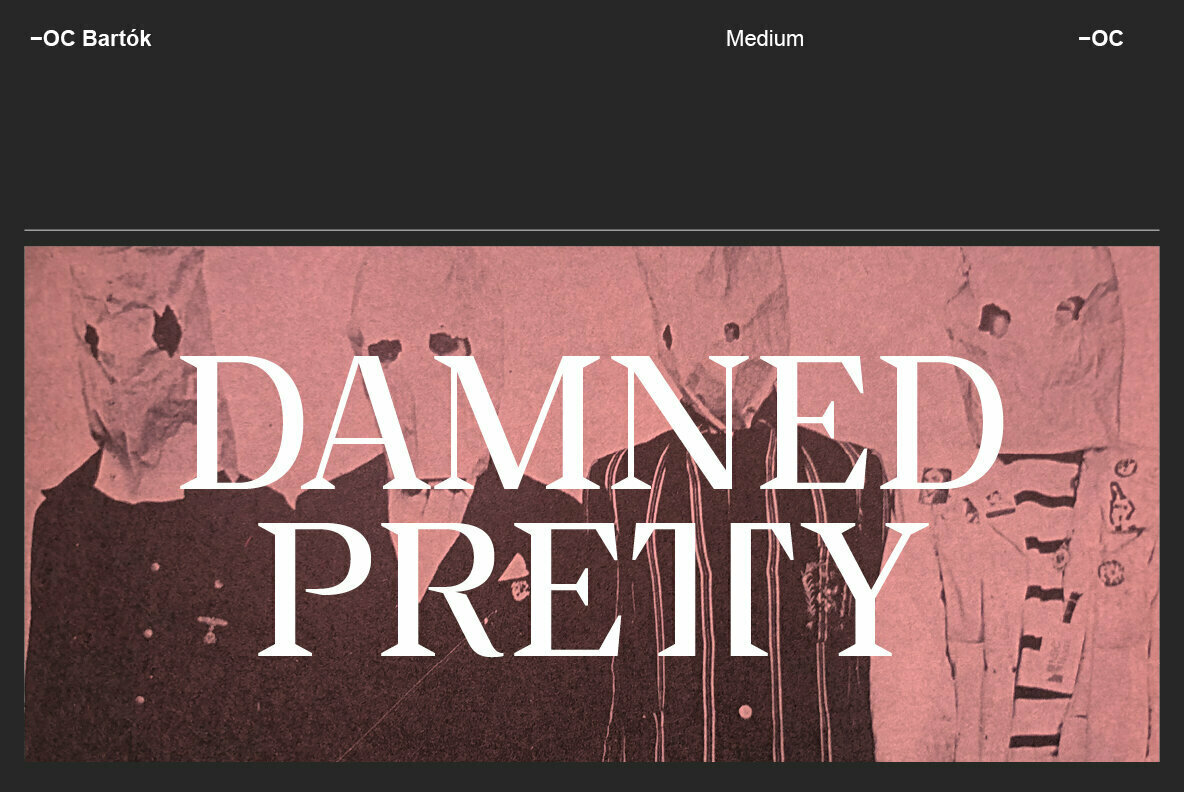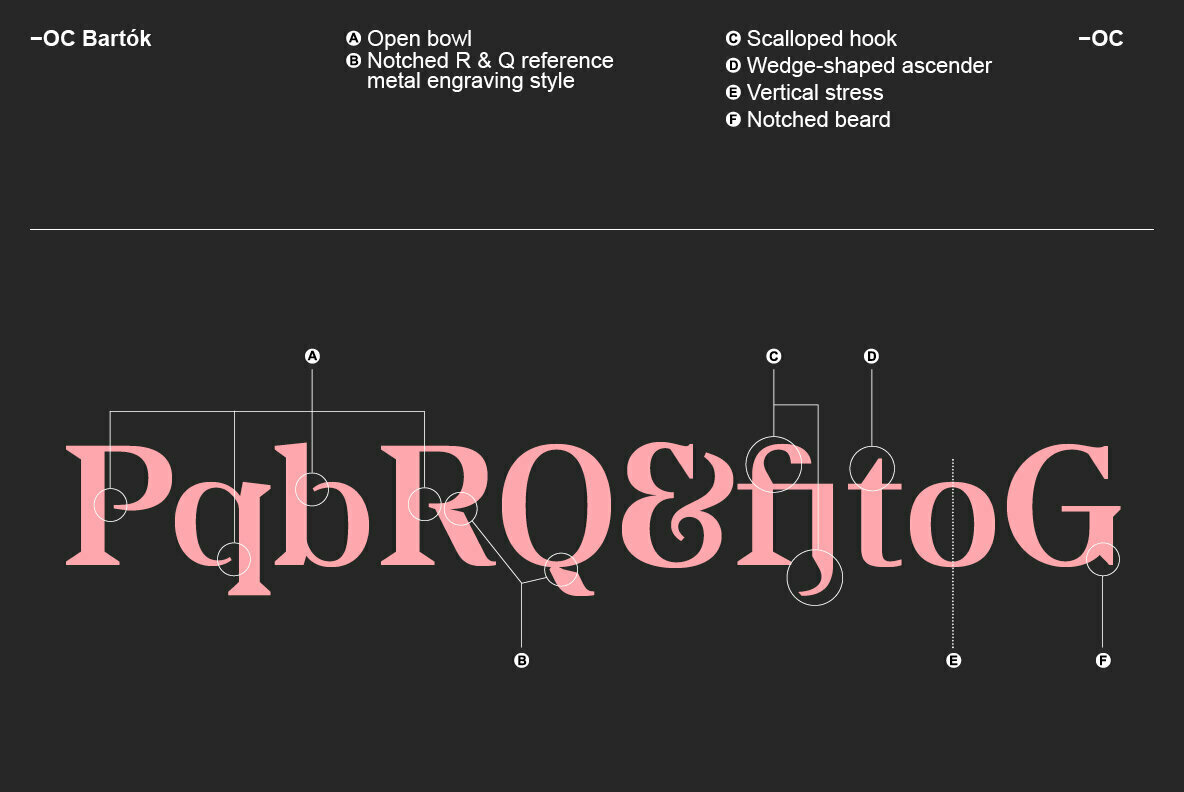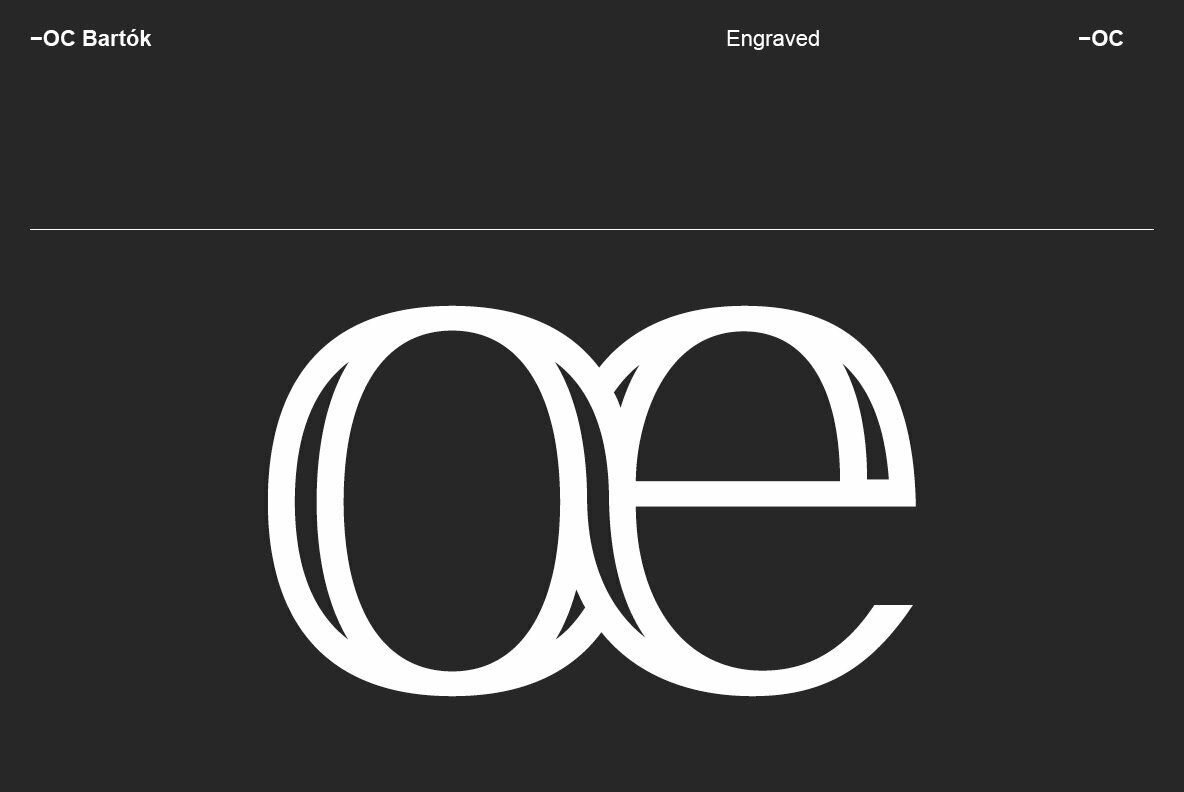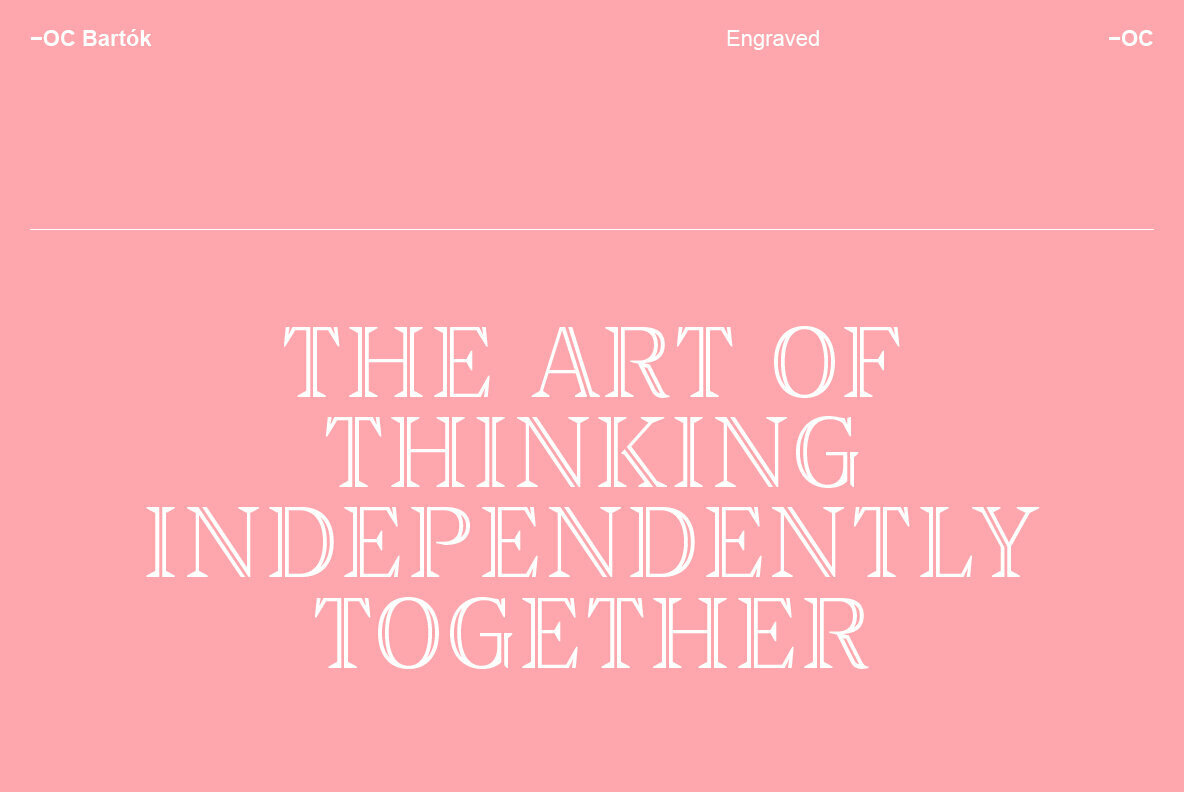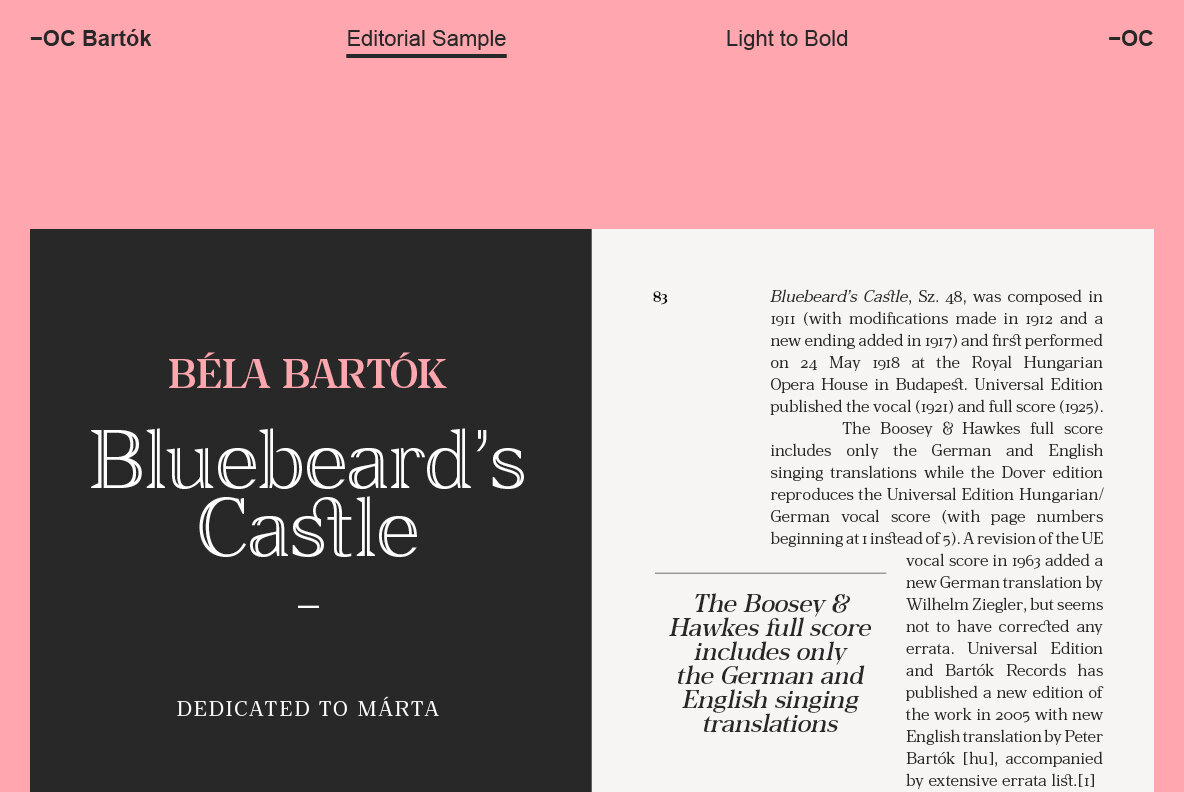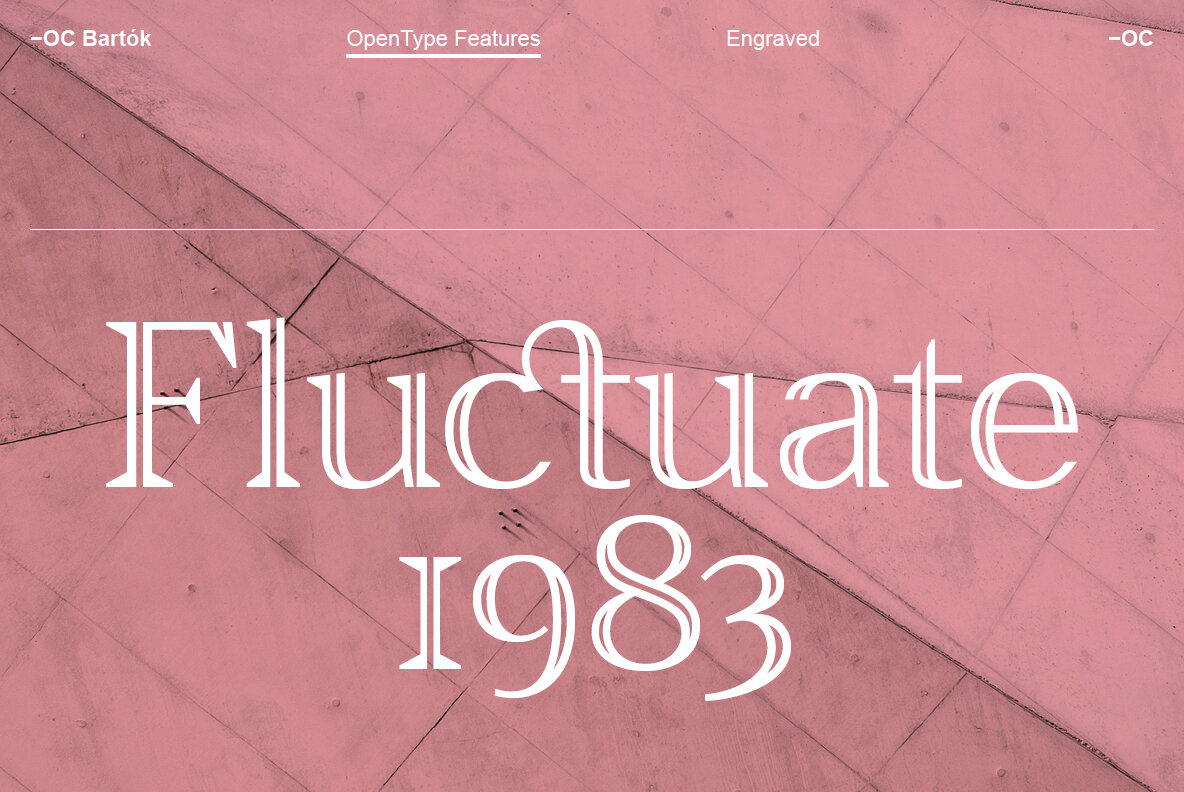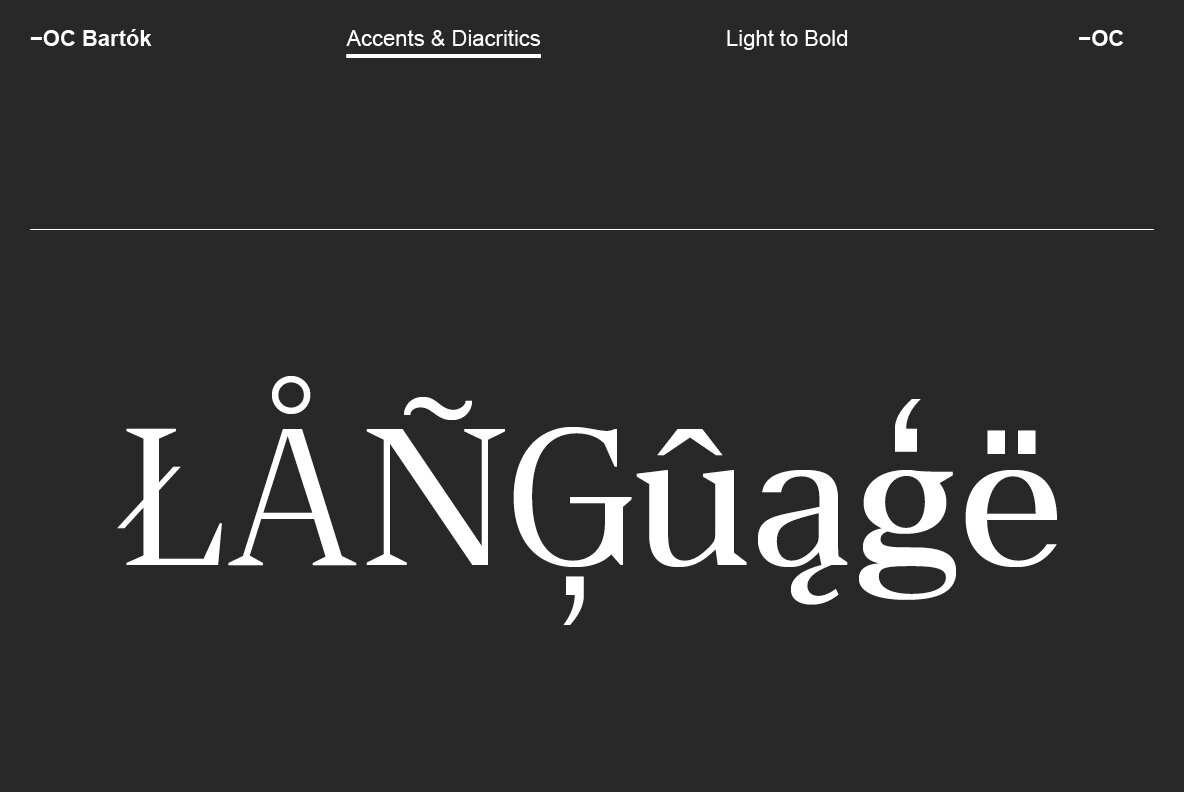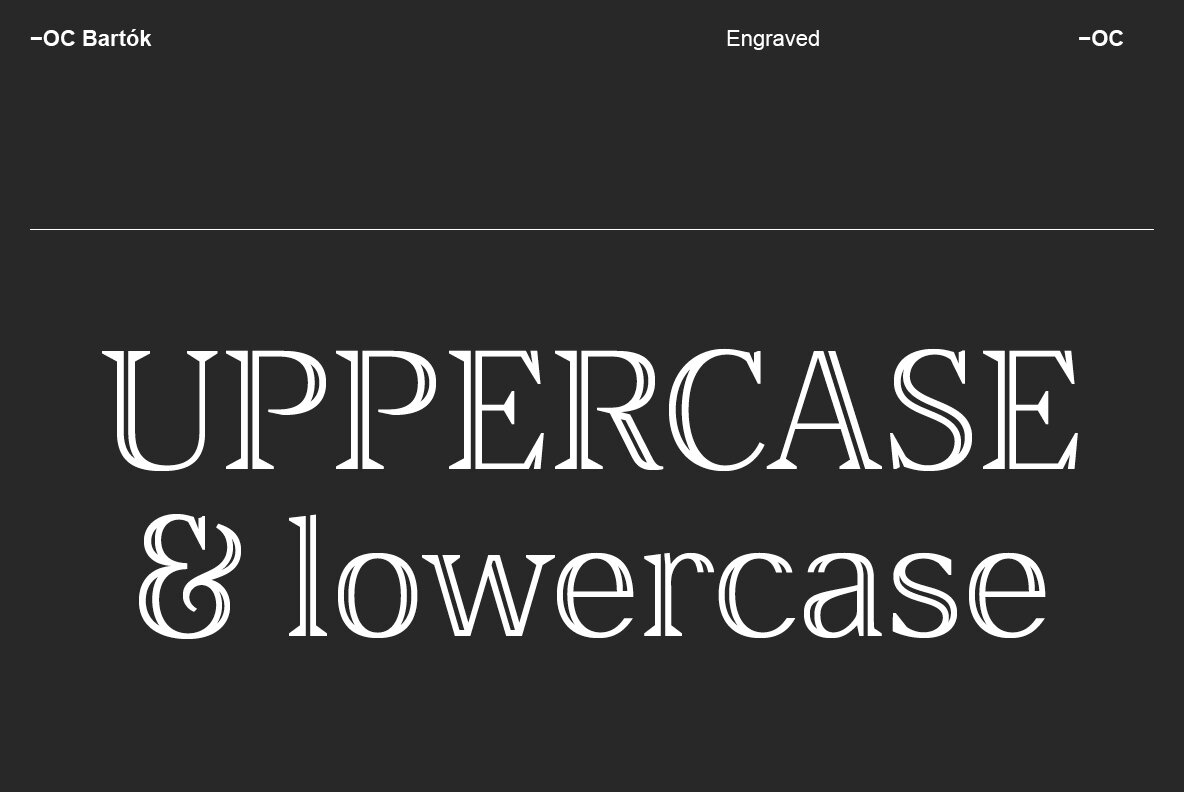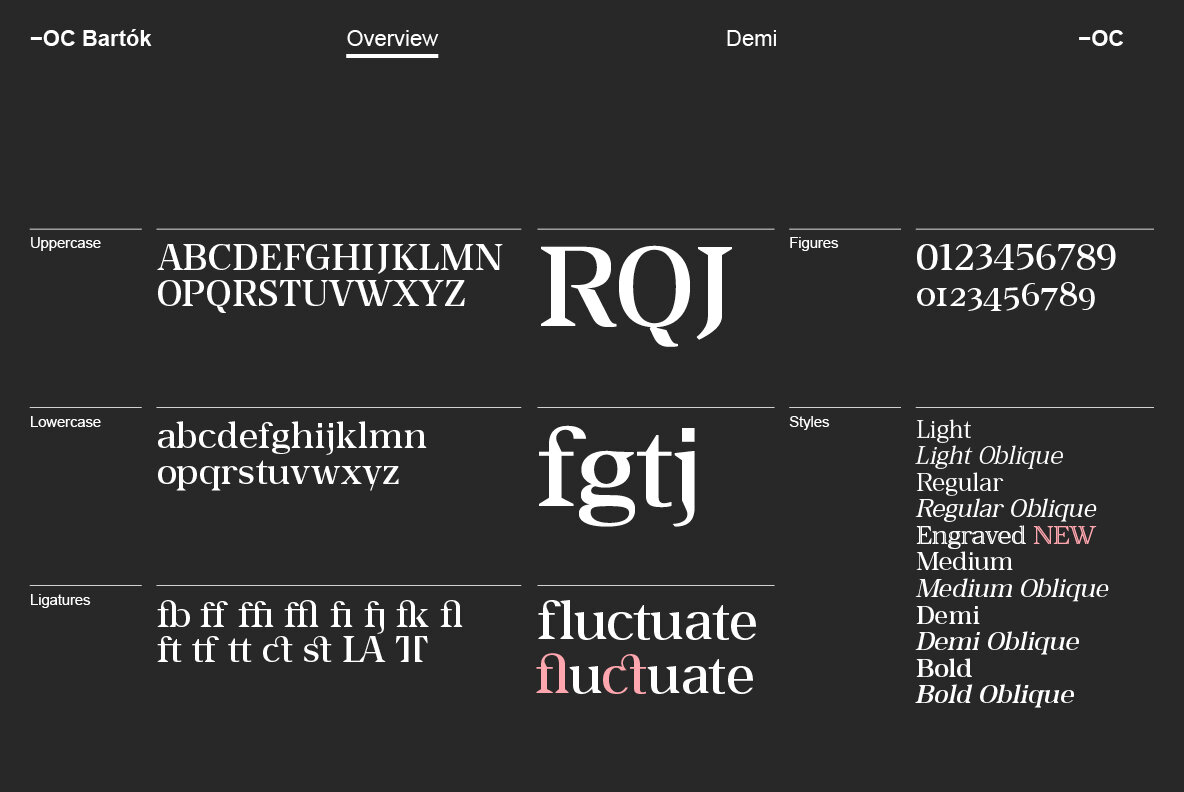
-OC Bartok Font
-OC Bartók is a beautifully crafted wedge serif available in ten styles.
The maverick brother of -OC Rey, it adds a brutal confidence to the former’s classical elegance, and carries a sense of passion and drama which increases with weight; starting subtly in Light and finishing with a magnificent crescendo in Bold.
Drawn from a mix of inspiration -OC Bartók is based on the readable skeleton of a gothic sans, has the high stroke contrast of a didone, while the sharp serifs and details like the notched R subtly tip their hat to the metal engraving style. The result is equal parts nefarious and majestic but never antique, suited perfectly for contemporary digital and analog applications.
The large x-height and open apertures make it incredibly versatile, equally suited for logos and headlines in bold weights, and extensive copy in light.
Designed with extensive language support and multiple open type figure styles and ligatures.